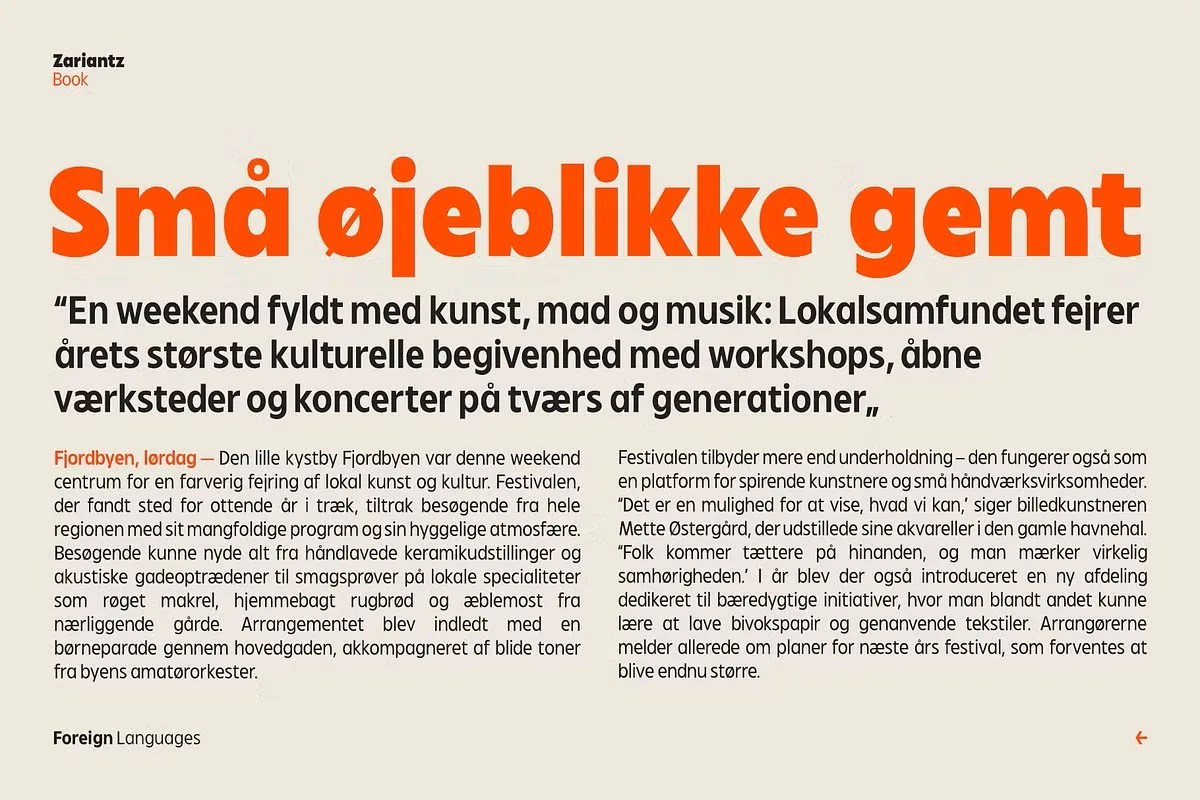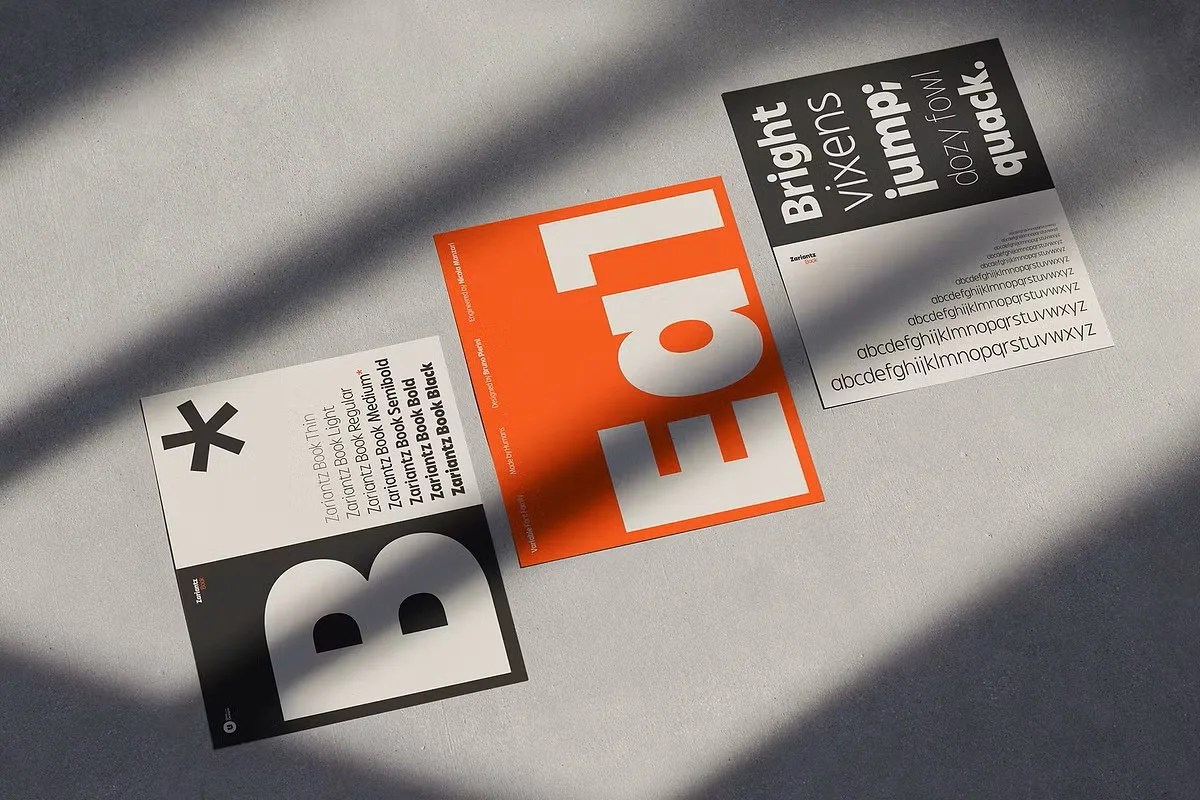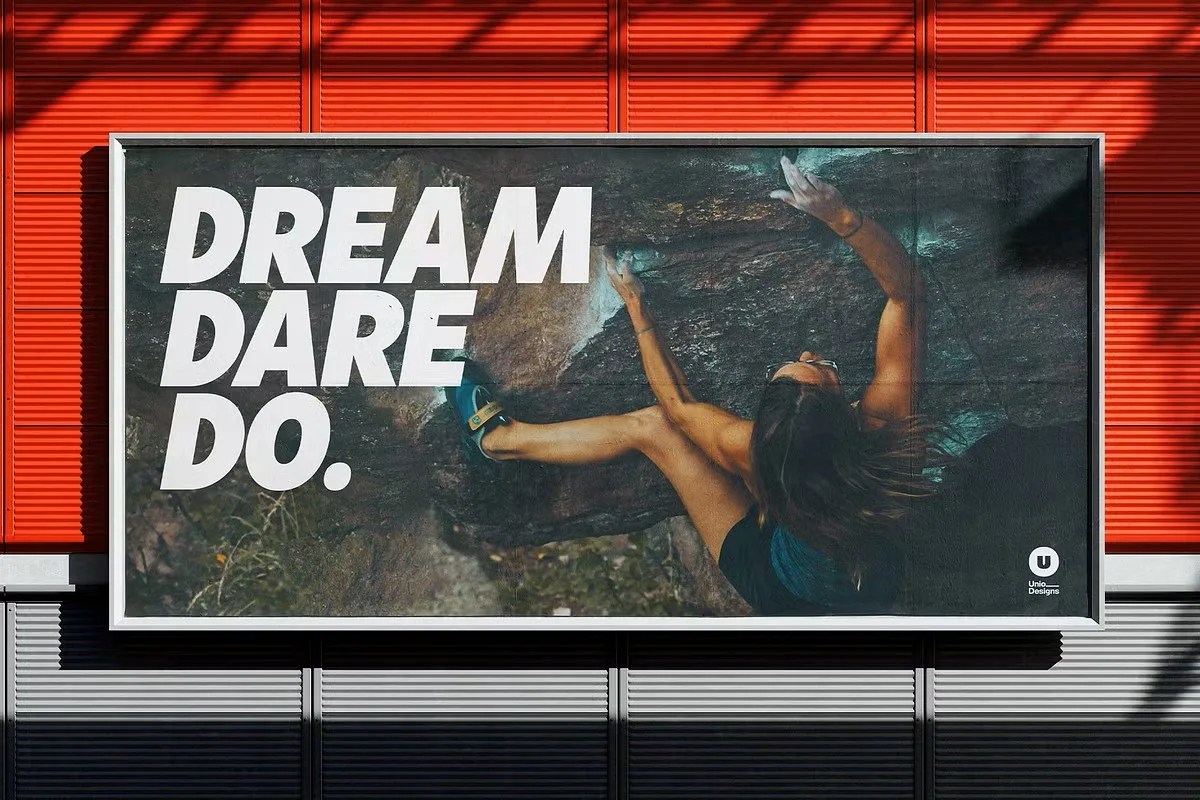
Zariantz Book from Unio Designs. This is a highly readable sans serif font created specifically for clarity and comfort in long-form text. It prioritizes function and effortless legibility above all else. The font’s design is clean and neutral. Therefore, it allows your message to shine without any typographic distraction. Zariantz Book is a perfect choice for designers and writers who need a reliable font for extensive reading environments. Its quiet confidence makes it a powerful tool for clear communication.
The font’s supreme clarity is no accident. In fact, Unio Designs engineered every detail for an optimal reading experience. The characters have generous spacing between them. This means your eye can move smoothly across lines of text without fatigue. Furthermore, the open apertures in letters like ‘c’ and ‘s’ prevent them from looking cluttered at small sizes. The font also features a balanced x-height, which is crucial for maintaining a consistent rhythm. This meticulous attention to detail makes Zariantz Book a truly readable sans serif font.
• Clean and elegant readable sans serif style
• Optimized for body text and long-form reading
• Features open apertures and clear letterforms
• Excellent for UI/UX, books, and editorial use
Zariantz Book